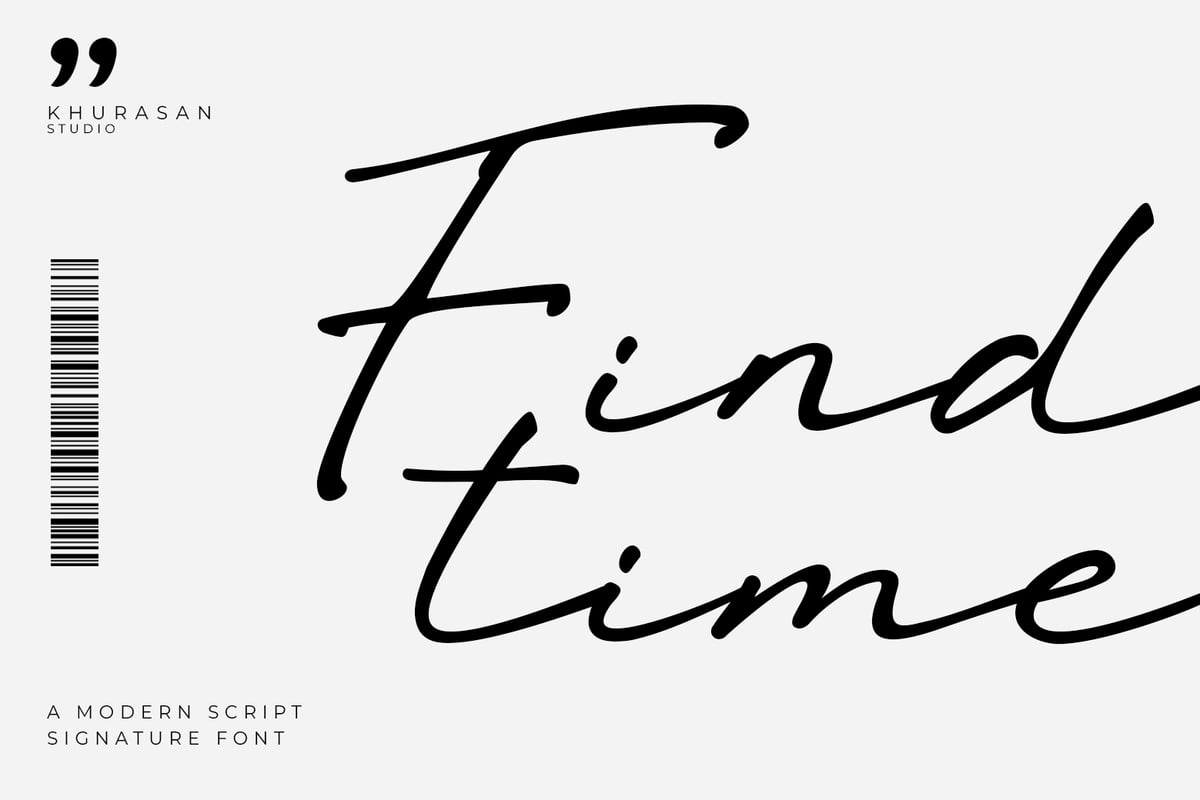
Findtime - A Modern Script Signature Font
Findtime is a flowing signature script font that brings real hand-lettering energy to every design you create.
Every stroke feels alive — smooth, expressive, and full of personality. Findtime delivers authentic handwritten charm that makes your designs feel warm, stylish, and genuinely premium.